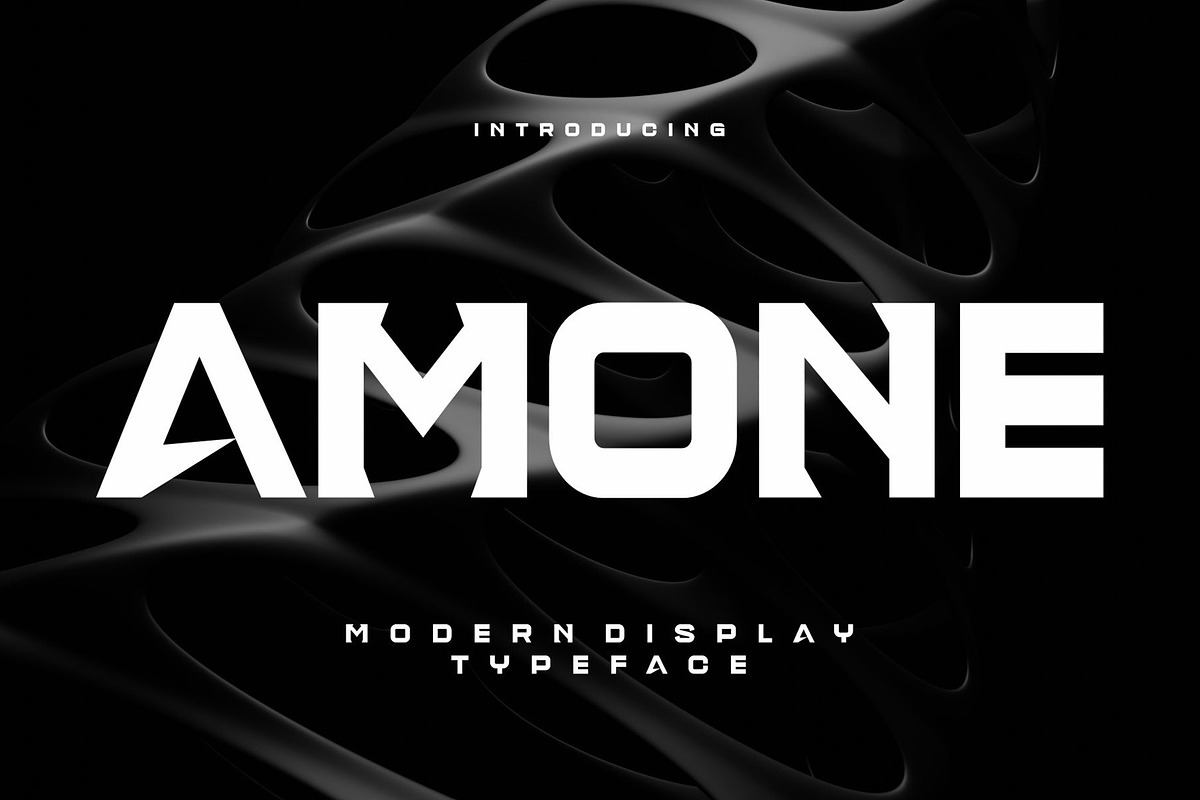
The AMONE Modern Display Font Free Download is a bold and contemporary typeface designed to make a striking visual impact. With its sharp lines, clean geometry, and stylish letterforms, AMONE is perfect for branding, fashion editorials, magazine headlines, social media graphics, and high-end packaging.
This display font is all about confidence and modern flair. It stands out best in large formats where its strong personality can truly shine. AMONE includes uppercase characters, numbers, punctuation, and multilingual support—giving you everything you need to create powerful, elegant typography across a wide range of projects.